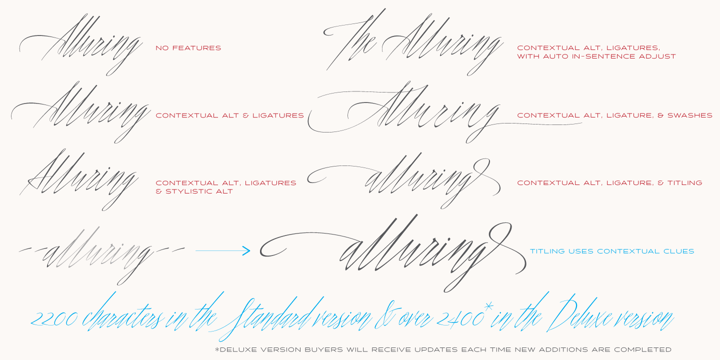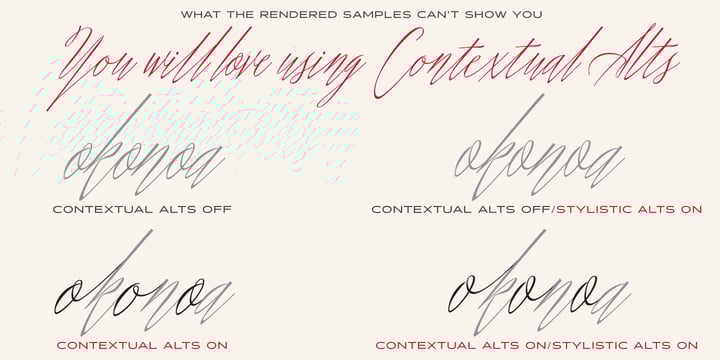
Shameless
Shameless™
by Positype
Shameless Font Family was designed by Neil Summerour and published by Positype. Shameless contains 2 styles.
About Shameless Font Family
I will spare you the long-winded description this time and all of the motivations and witty innuendoes. Quite frankly, I forgot about creating this typeface and it sat on my hard drive for almost a year. Luckily, my daughter Isobel saw the initial drawings one day and ask me about those pretty letters and I remembered… yep, that happened. That said, time made this a better typeface… with fresh eyes and time, much was redrawn, retooled and expanded to something I truly enjoy playing with. Shameless makes extensive use of Contextual alternates to create a proper ebb and flow from letter to letter. Interestingly, there are only a handful of ligatures… instead many special combinations are accounted for solely by relying on Contextual Alts. Mix in Stylistic Alts, Swashes, responsive Titling Alts, numerous Style Sets, etc and you can have a lot of fun. I created 2 versions. A ‘Standard’ version that has 2200+ characters and a ‘Deluxe’ version that has 2400+ characters and an interesting caveat… I plan on expanding the Deluxe version any time I have an idea to add to the typeface… and as such, buyers will receive all of those updates at no charge (with updates going directly to the distributors). You get what you pay for… no insane discounts. Oh, and if you are wondering… Shameless is based on my handwriting using Kuretake Zig CocoIro pens. I love these pens.